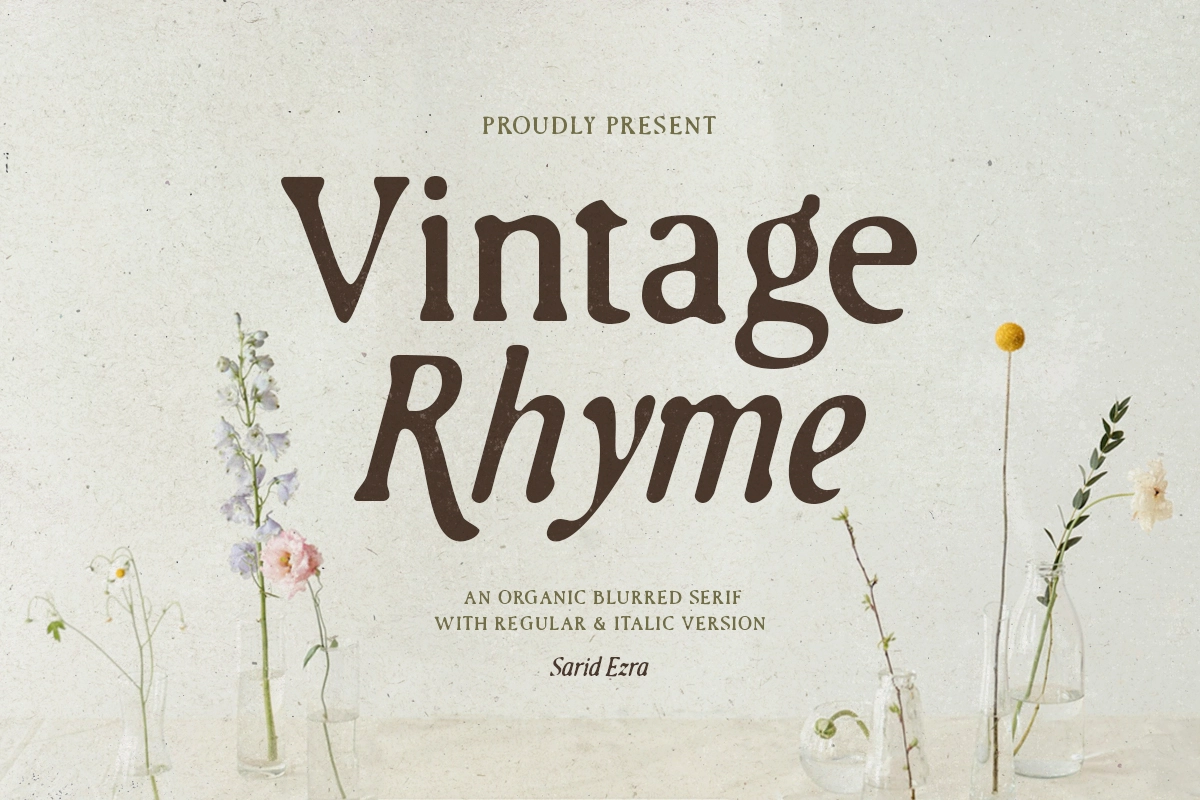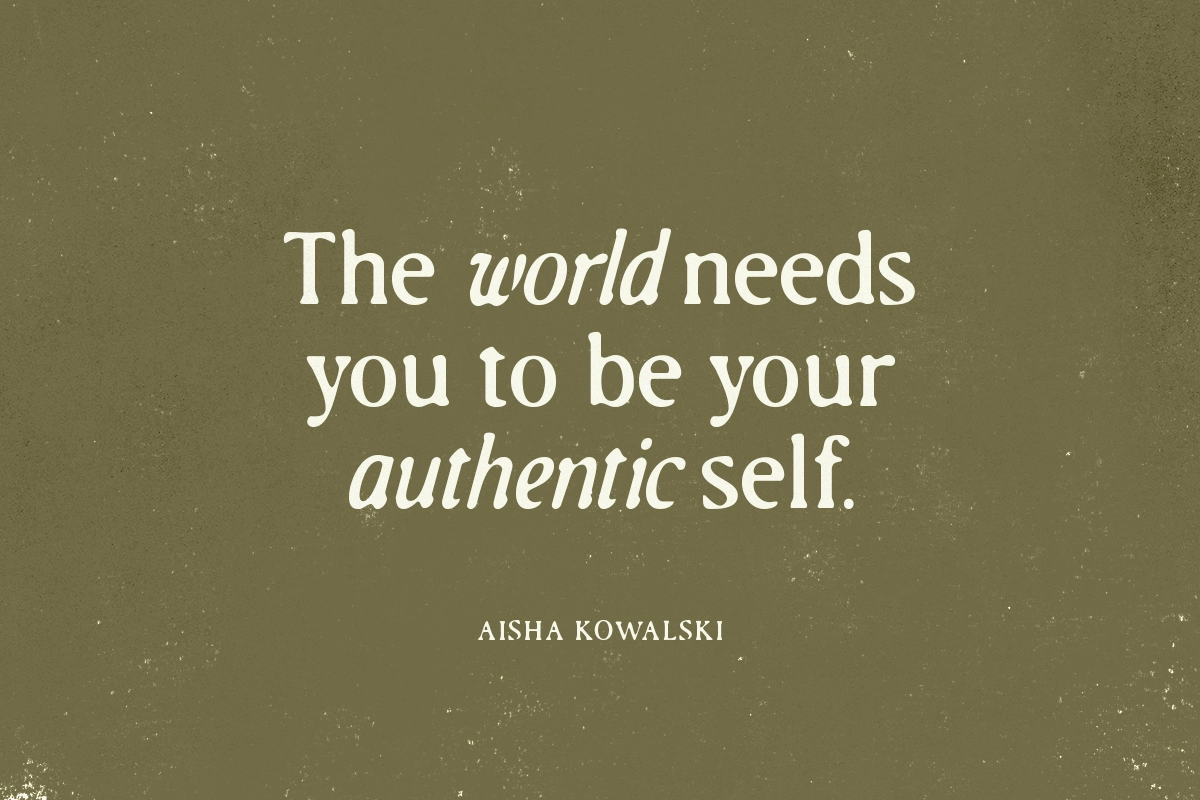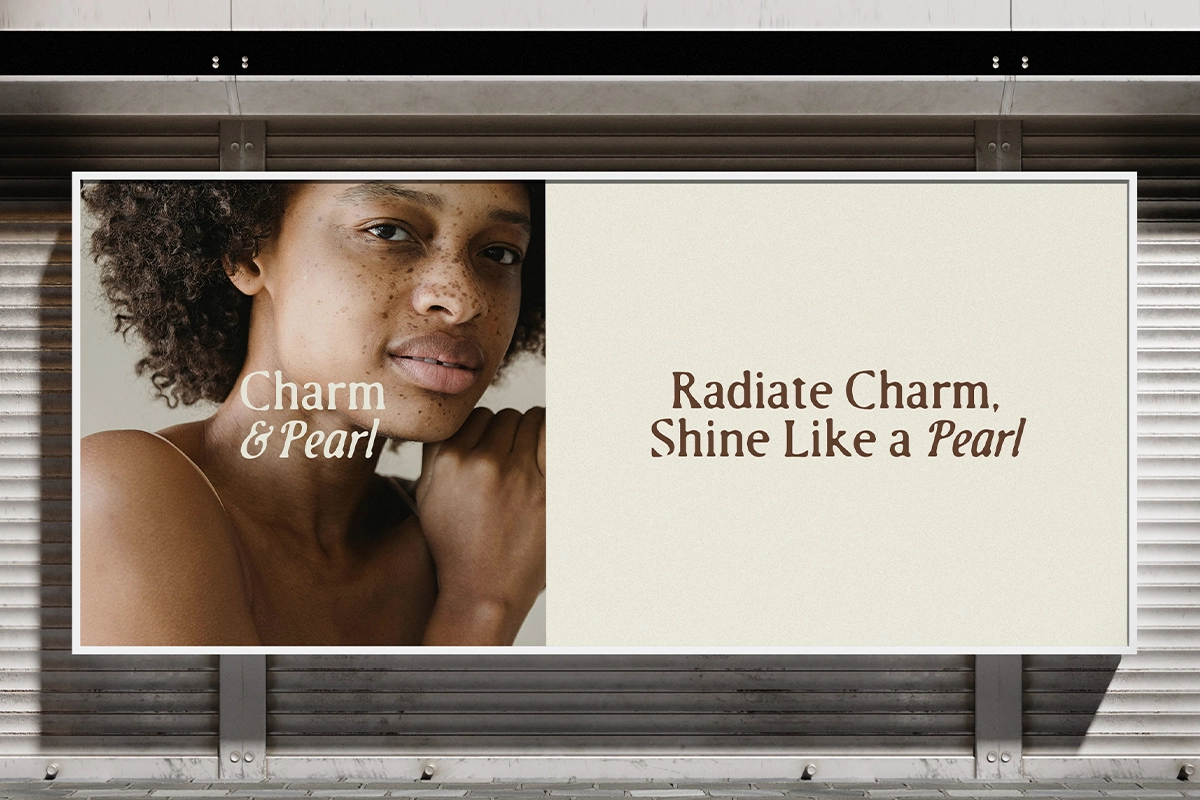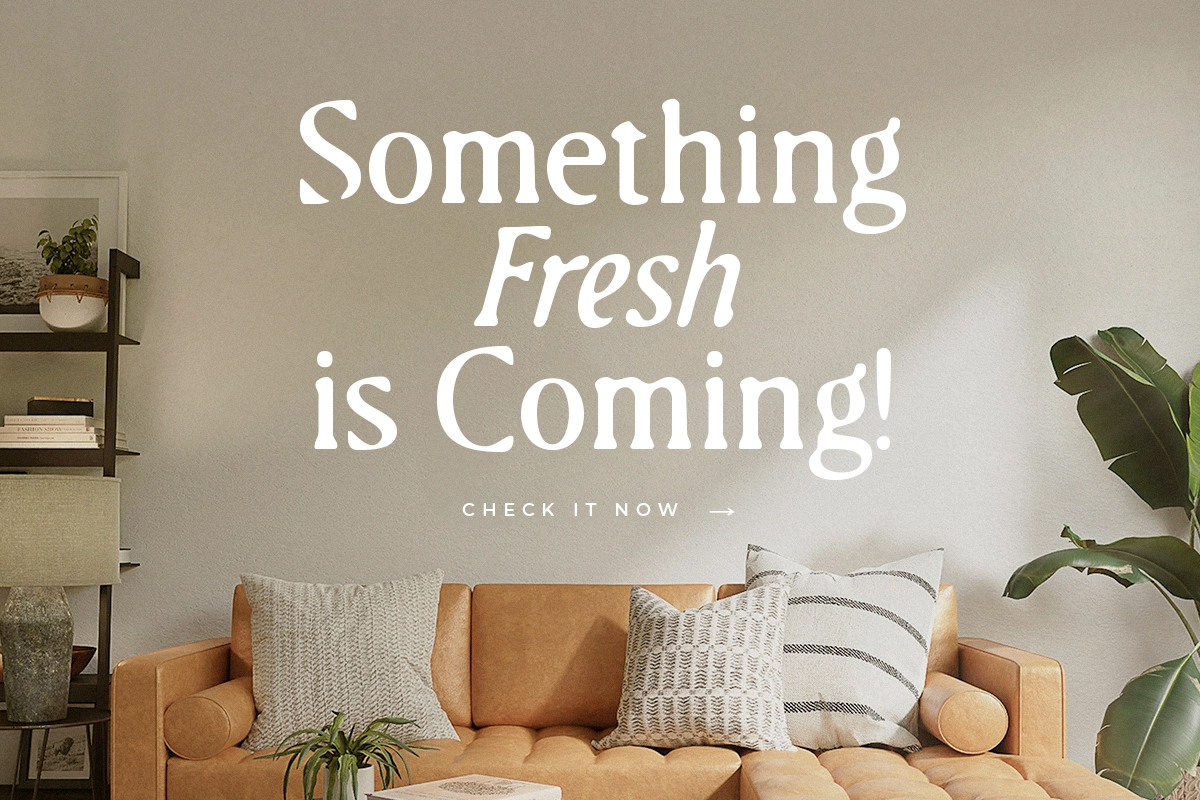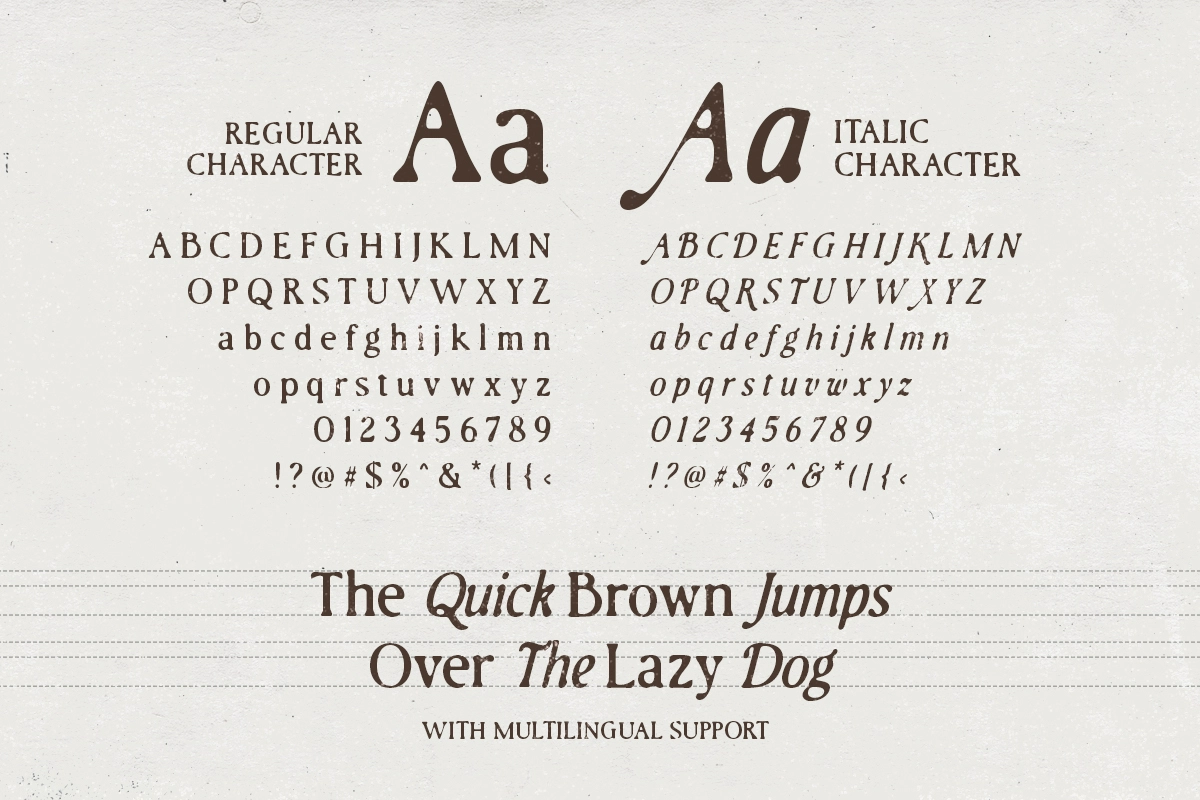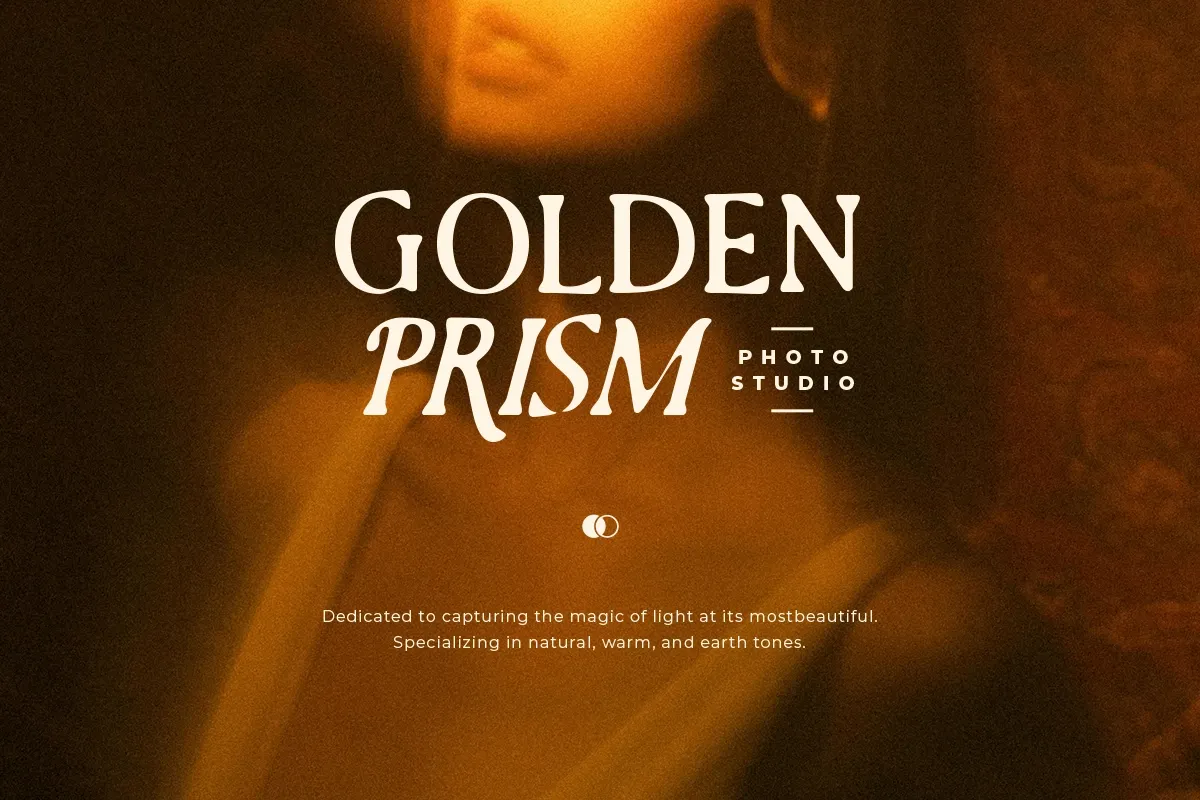
Vintage Rhyme Organic Serif
Vintage Rhyme Organic Serif is a beautifully crafted serif font family featuring natural, organic textures and subtle blurred edges for an authentic vintage charm. Available in regular and italic styles , it creates stunning visual harmony and depth in every design.
Perfect for logotypes, wedding invitations, branding materials, packaging, and editorial layouts, this typeface adds warmth and timeless elegance. Its handcrafted organic feel makes it ideal for projects seeking a natural, artistic aesthetic.